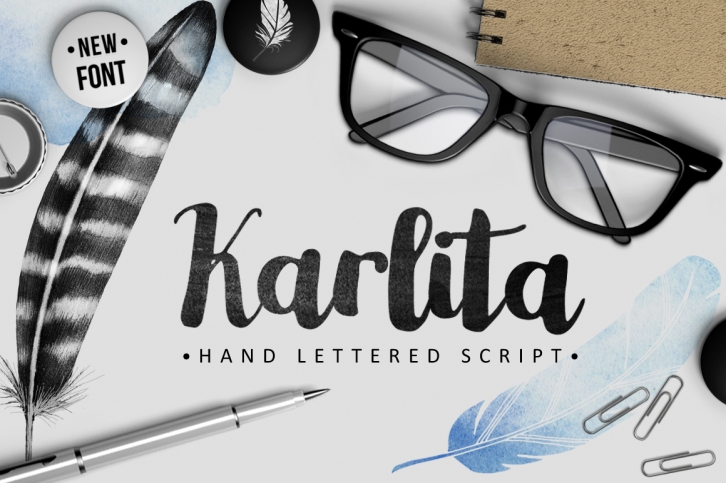
Karlita is a great font that was designed by Tabitazn. Imagine the amount of combinations you can create using this font! The archive is 6.43 MB and it was released on April 14, 2016. Karlita looks beautiful on wedding invitations, greeting cards, logos, posters, labels, t-shirt designs, logos, business cards and is perfect for use in ink or watercolor works, fashion, magazines, packaging and food menus, children's books and more!